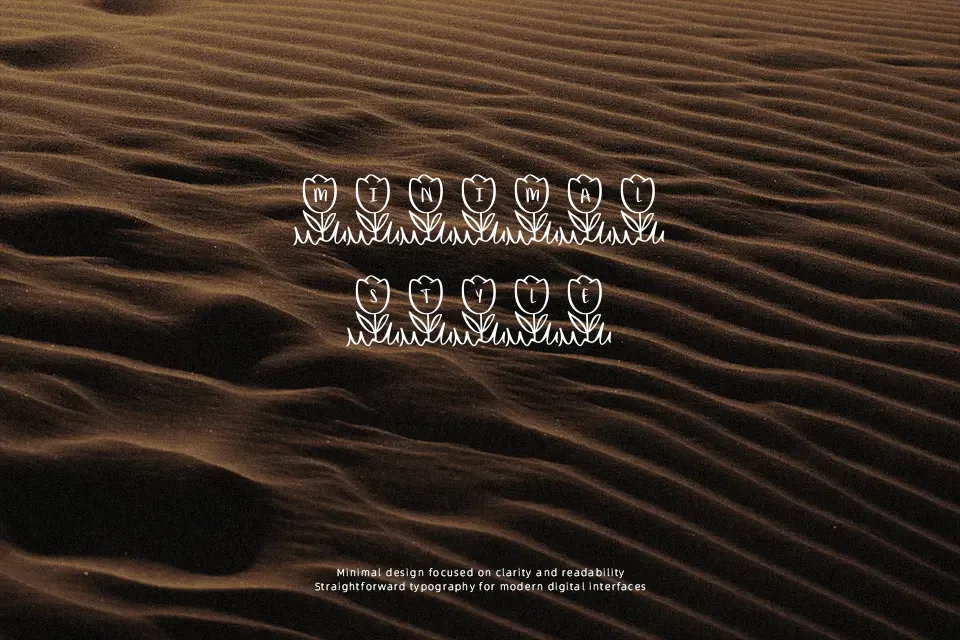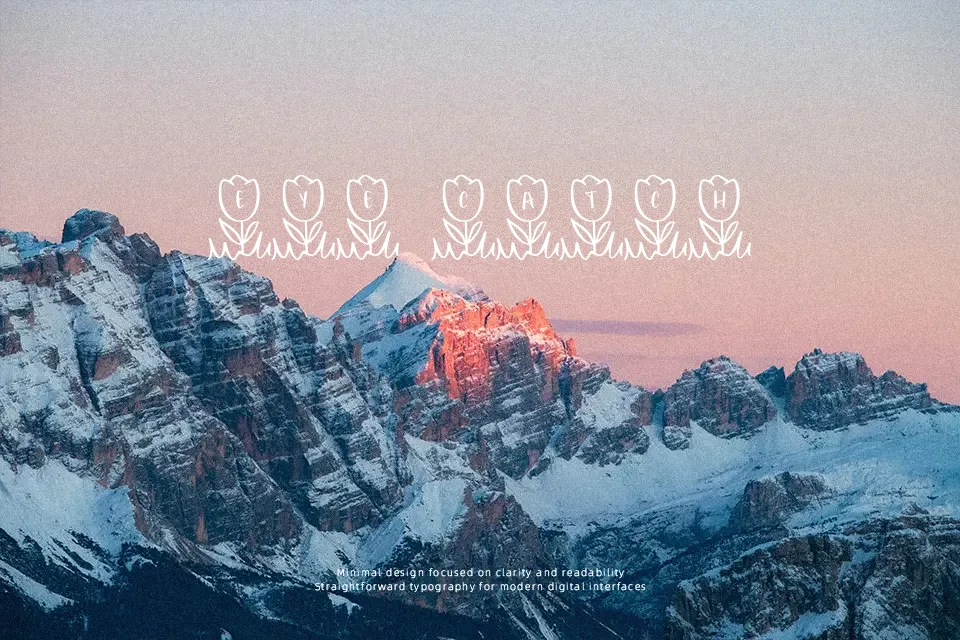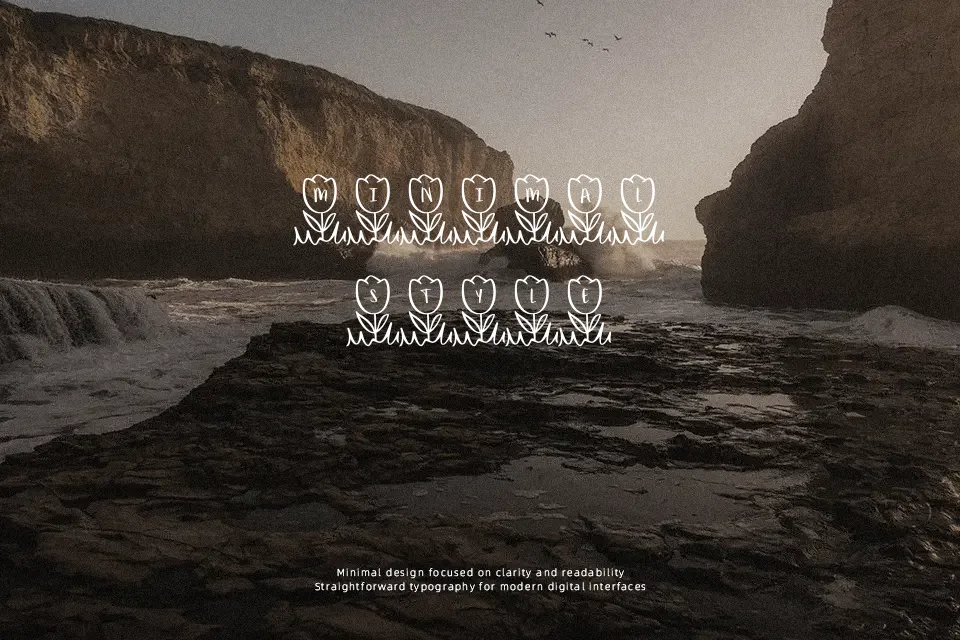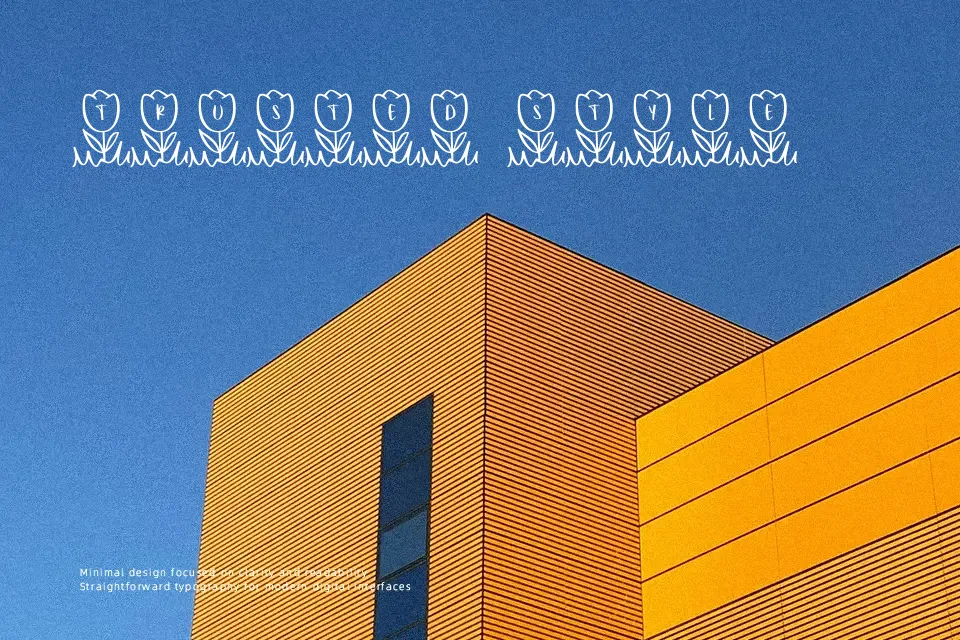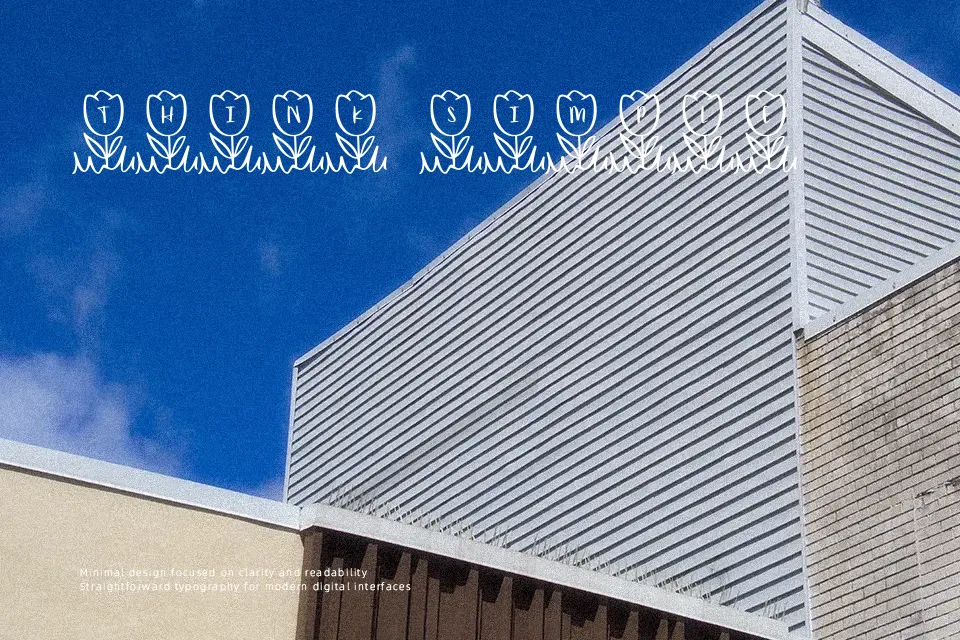
Tidy Tulips Font
Designed by Brittney Murphy Design
Each character in Tidy Tulips Font is constructed around a stylized botanical flower, placing letter outlines directly upon upright tulip blossoms and slender stems. The stroke style remains uniformly monoline throughout the plant contours, framing character shapes with moderate internal contrast. Proportions stay relatively tall and vertical, paired with wide visual spacing to prevent adjacent petals and leaves from colliding. In practical evaluation, the decorative structures maintain unmistakable charm when presented at substantial scale. However, this elaborate botanical geometry compromises continuous readability, making the typeface poorly suited for dense paragraphs or compact body text. The letterforms excel across spring greeting cards, craft packaging, and thematic event banners where individual silhouettes have sufficient room to breathe.
Best For: spring event banners, craft product packaging, botanical greeting cards, children’s workshop posters
Not Ideal For: long paragraph text, small interface labels, corporate reports, mobile system typography
Perfect for headline, invitation, and kids, with a artistic and decorative style.